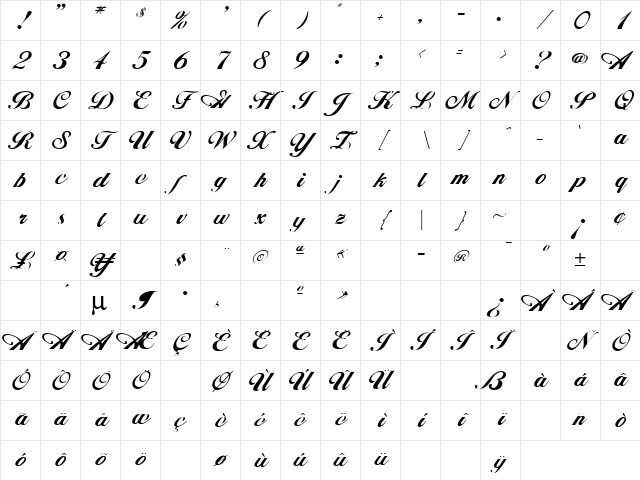
Hancock Regular
Design Context for Hancock
Hancock is a composed and adaptable typeface that performs quietly and consistently across a wide range of design contexts.